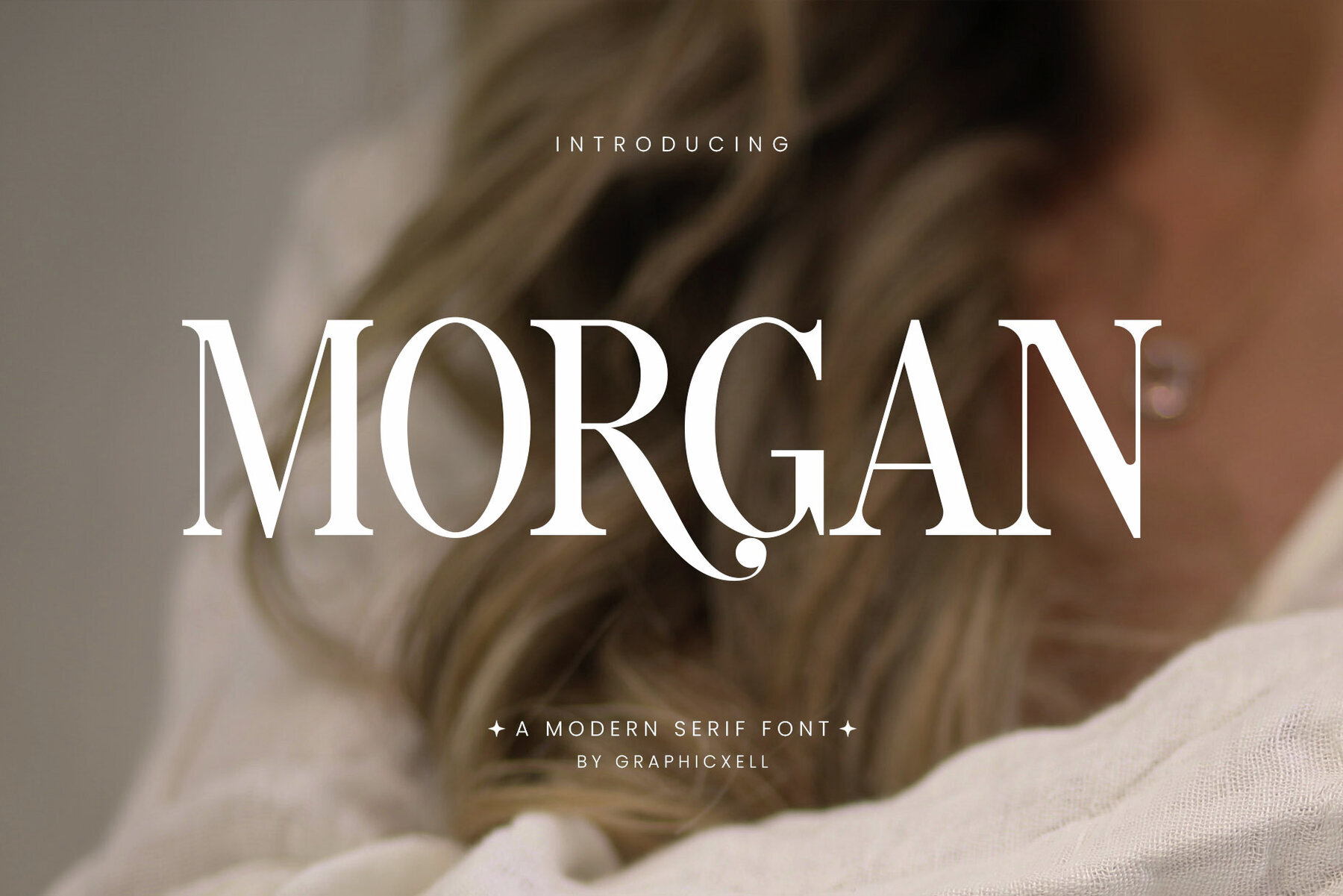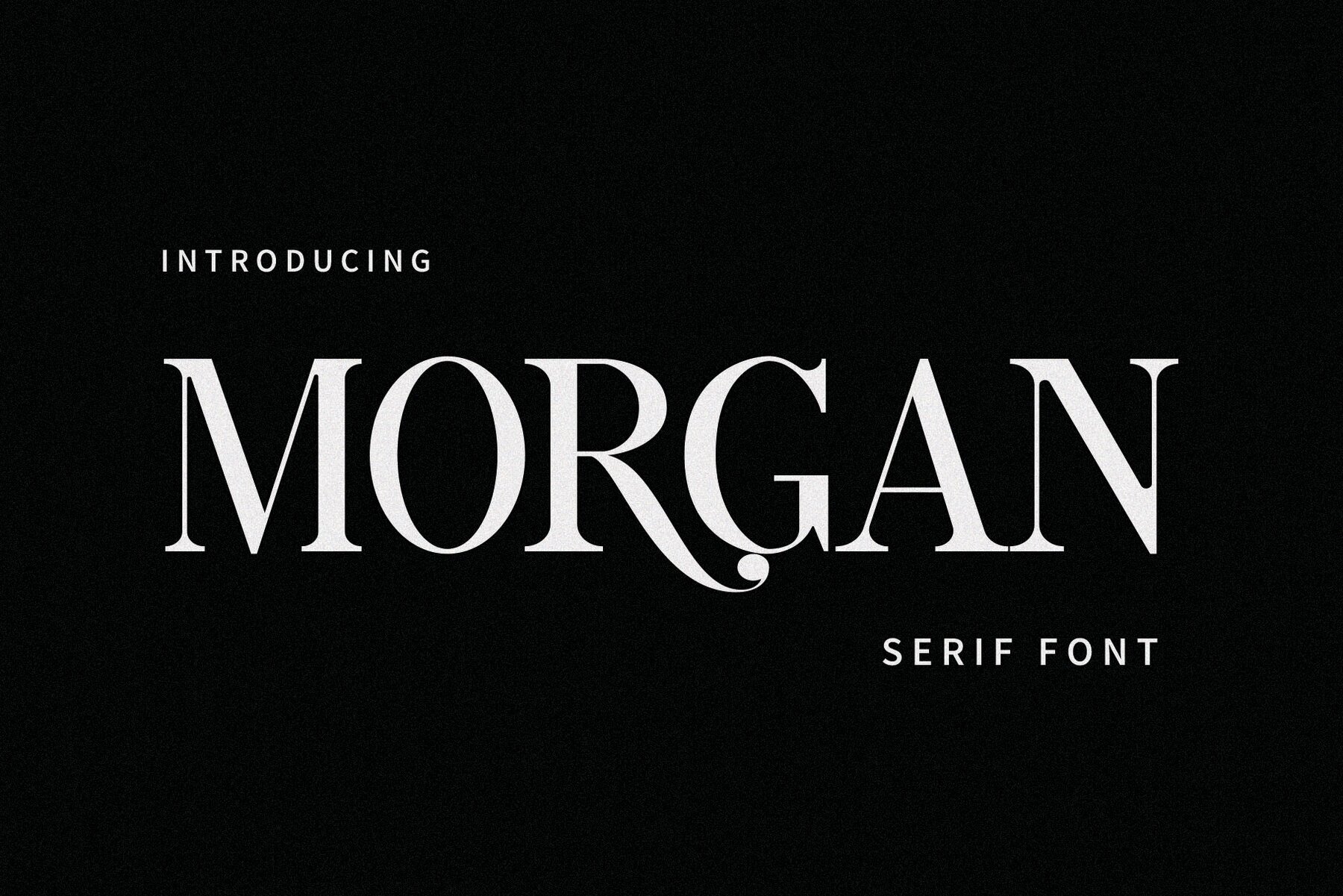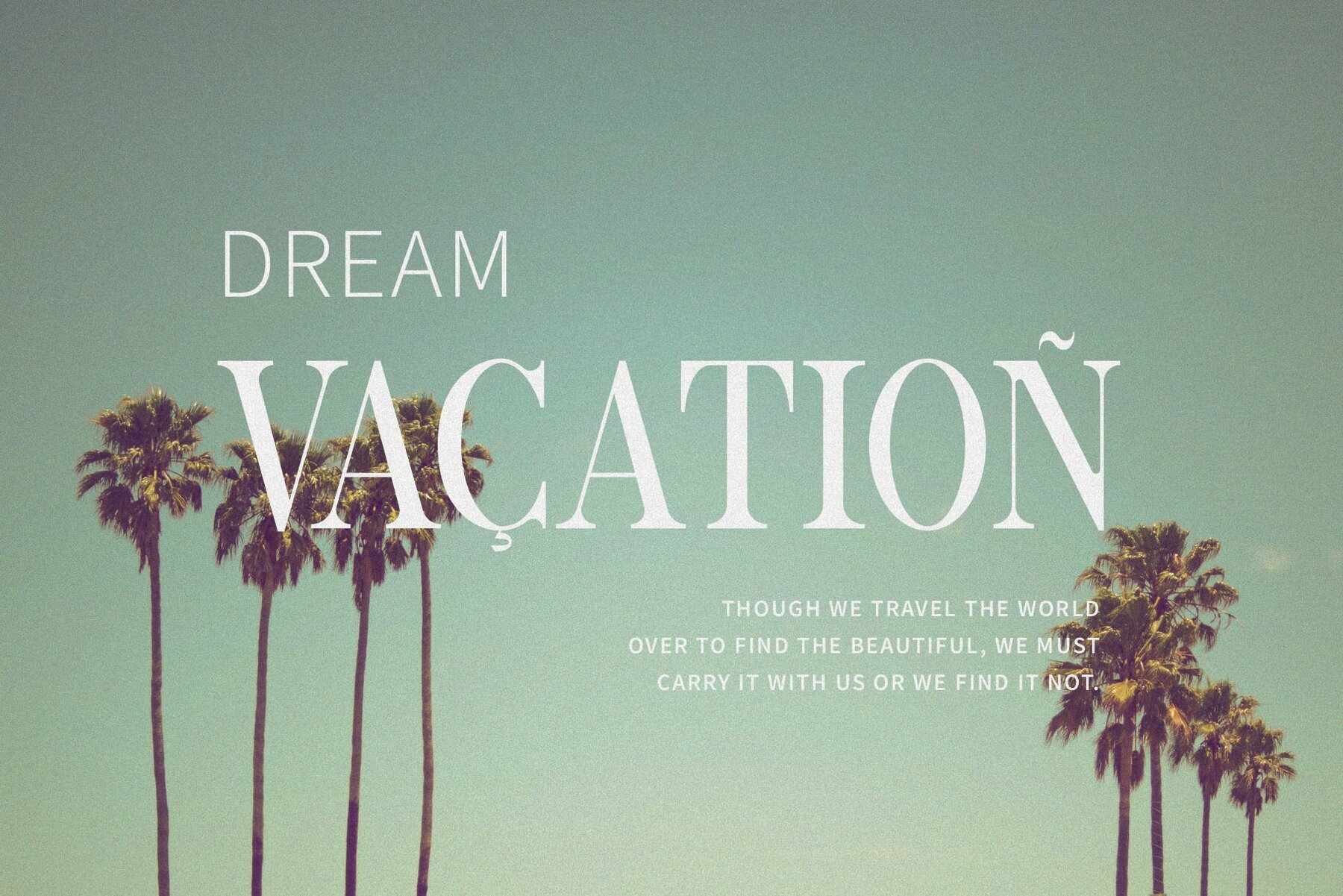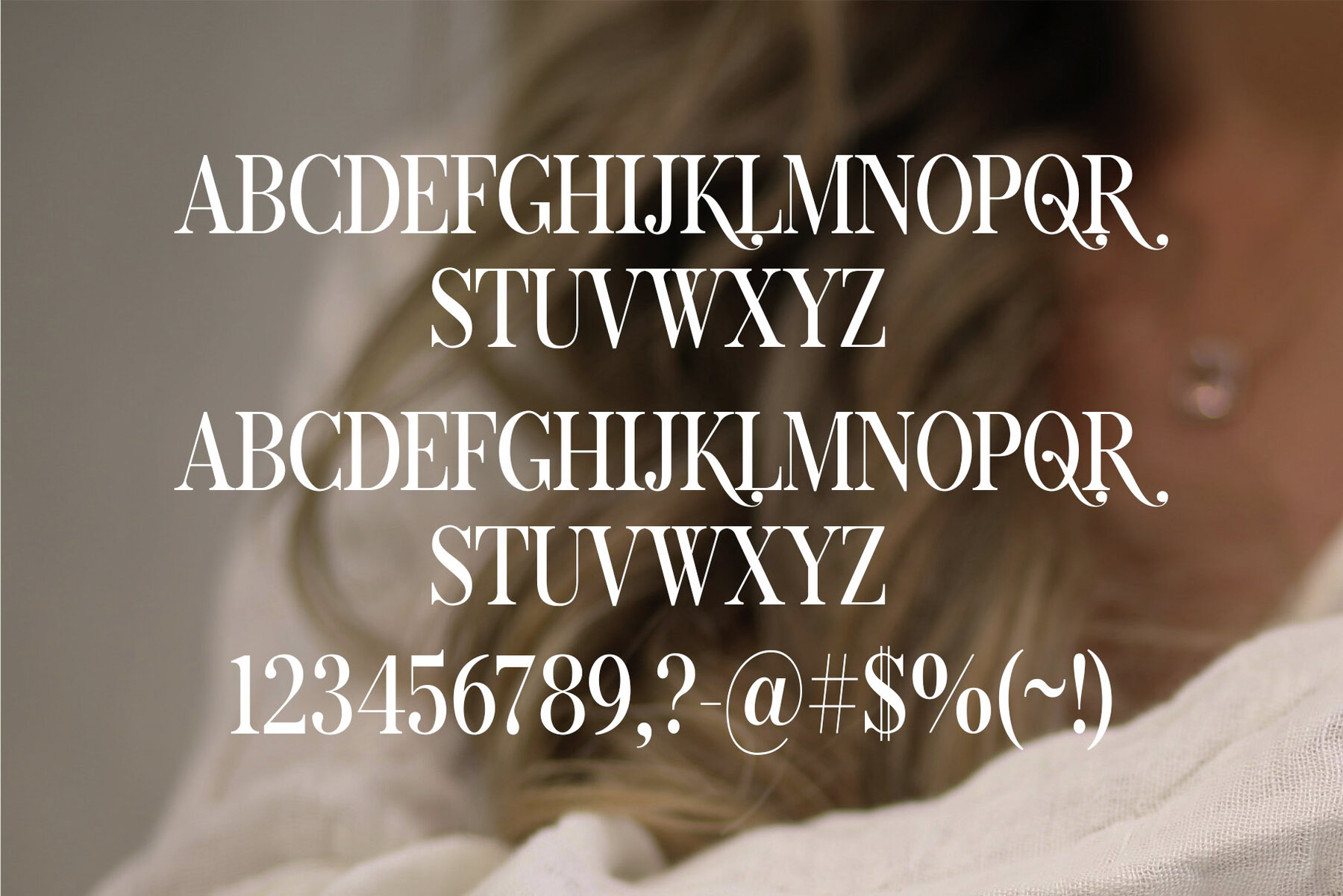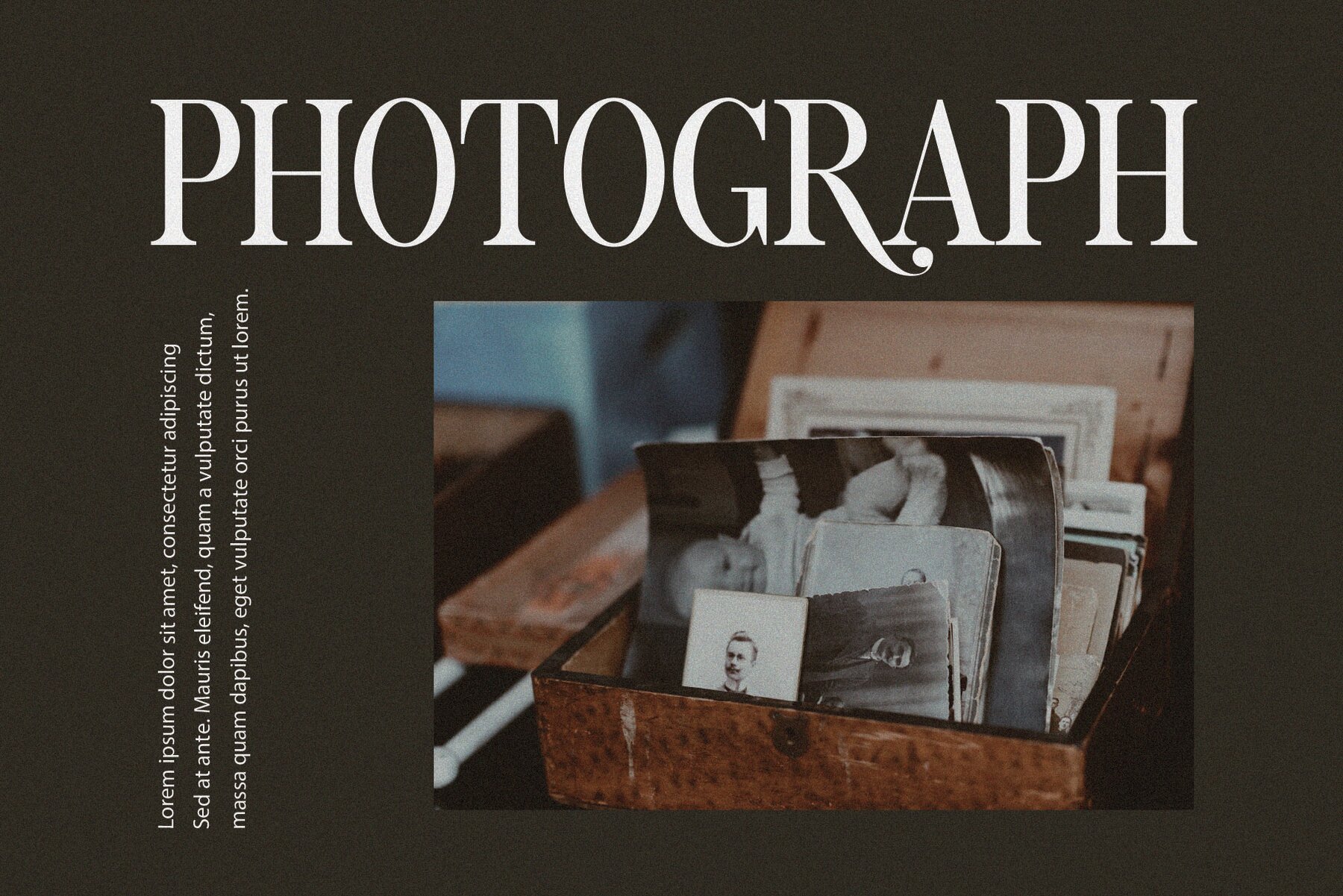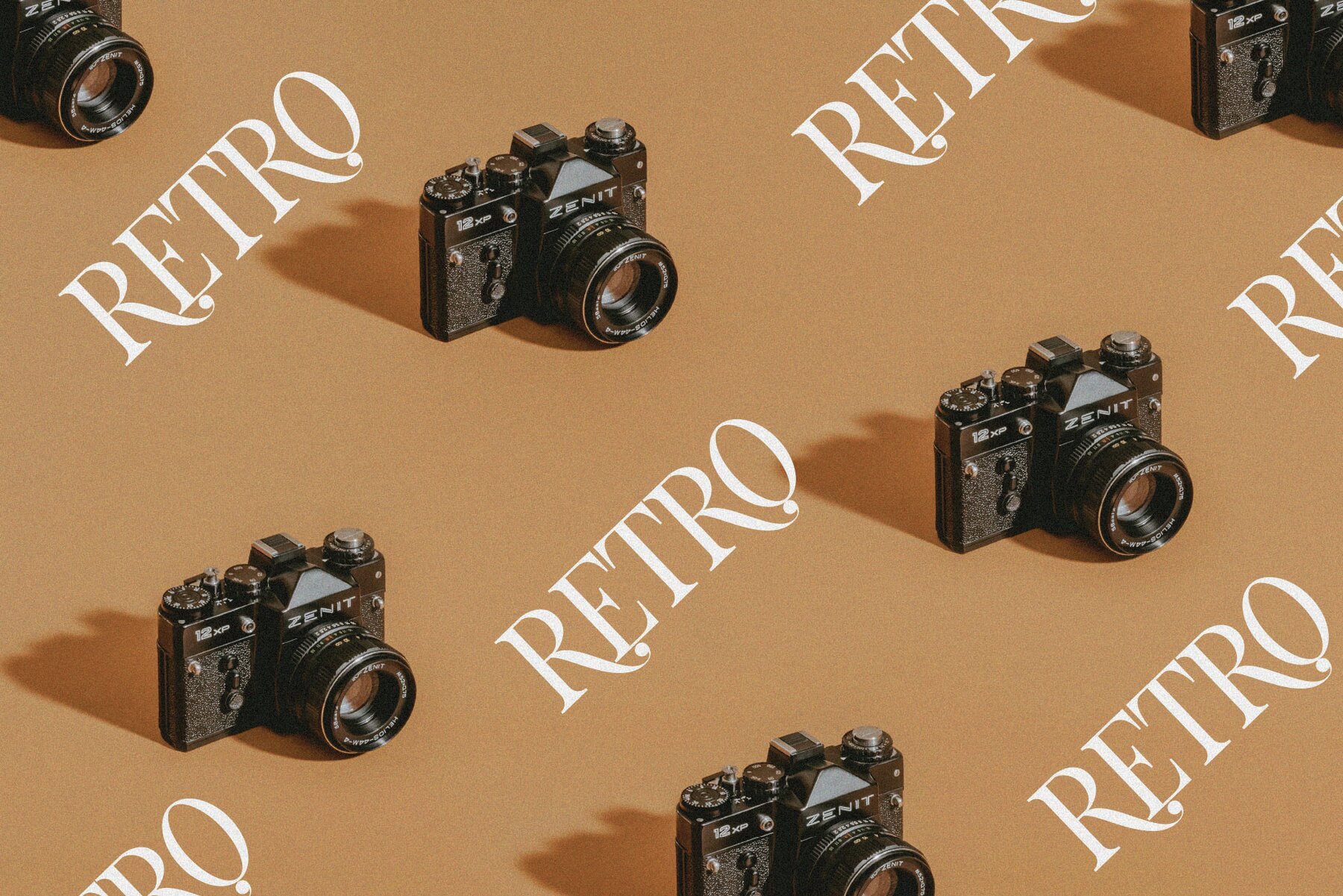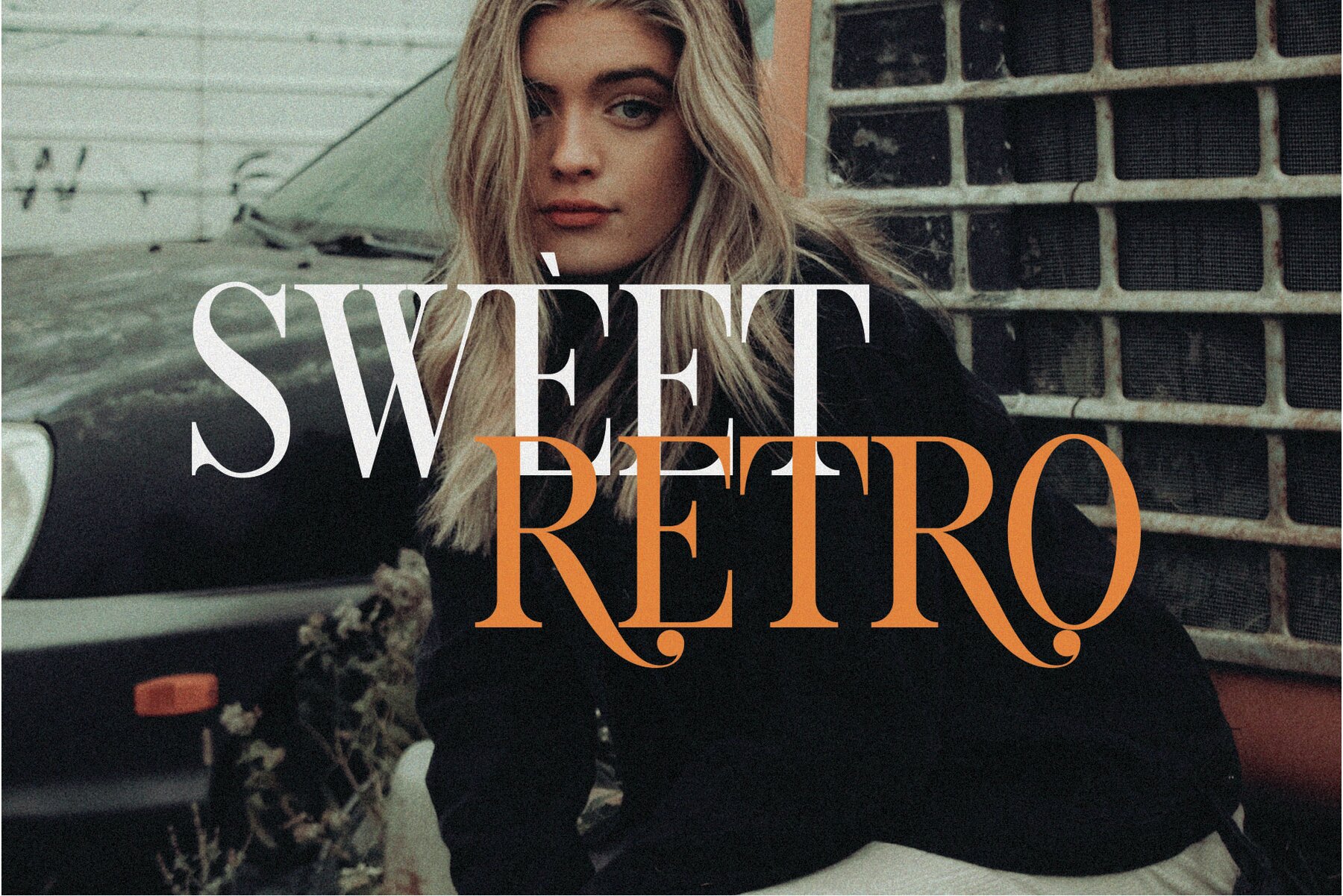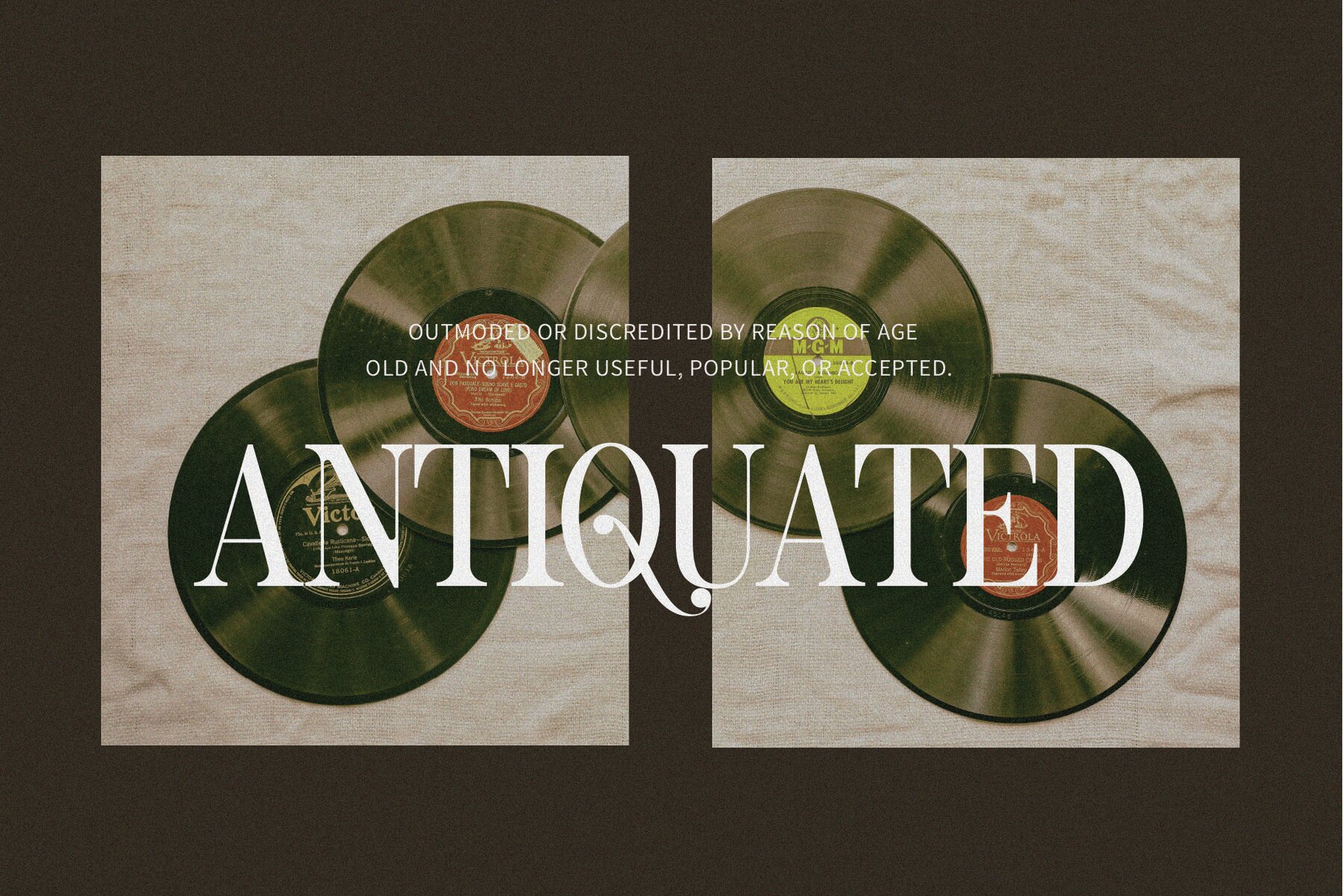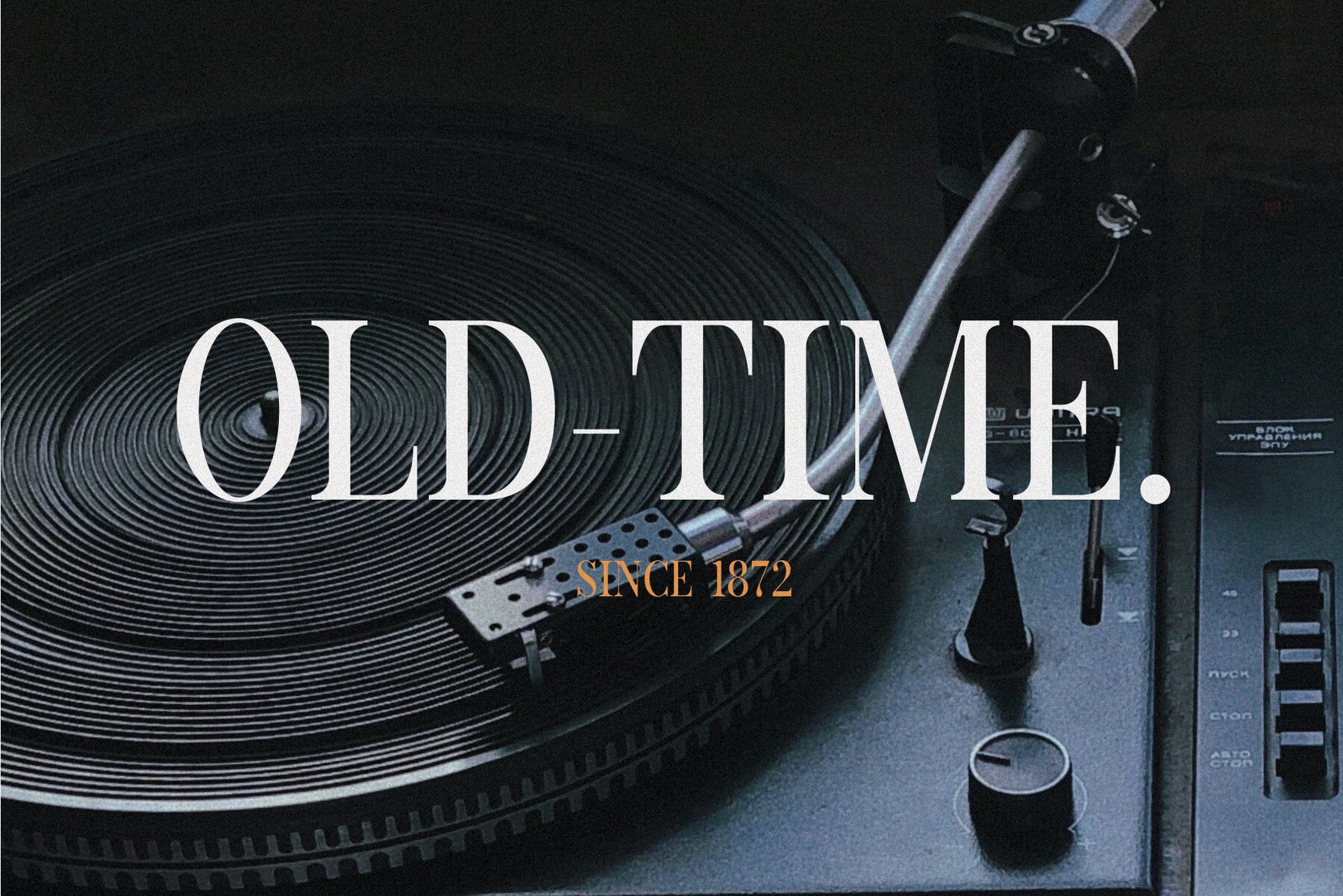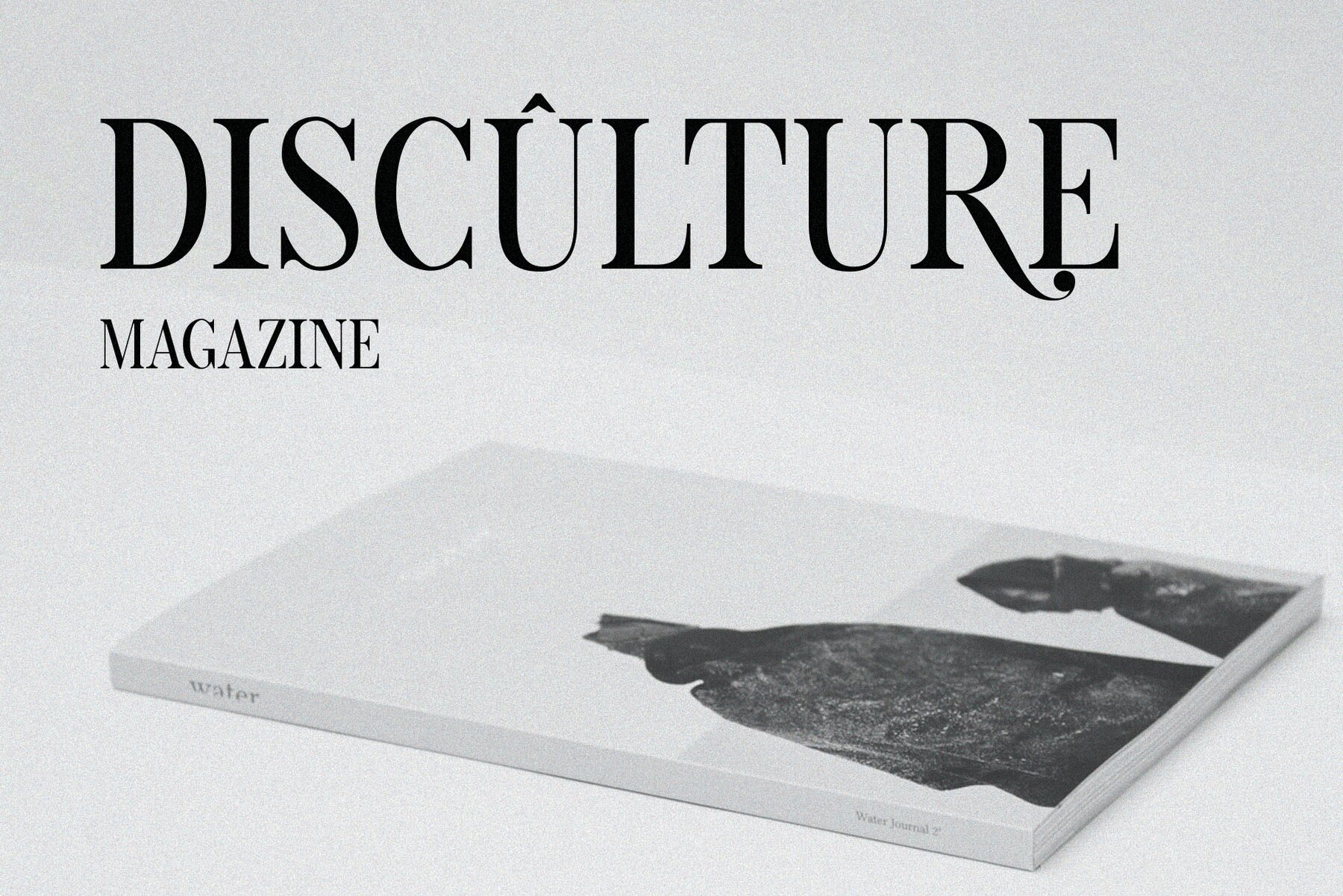
Morgan Font
Morgan Regular
Morgan by Graphicxell is a font inspired by renowned minimalist logos, ideal for enhancing your creative projects.Morgan by Graphicxell: Minimalist Elegance for Professional Design